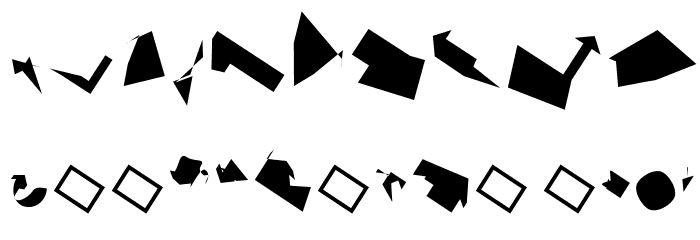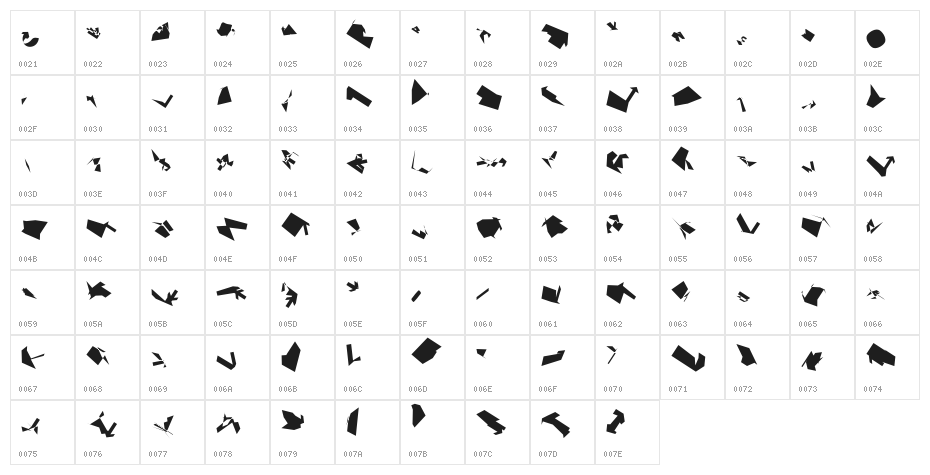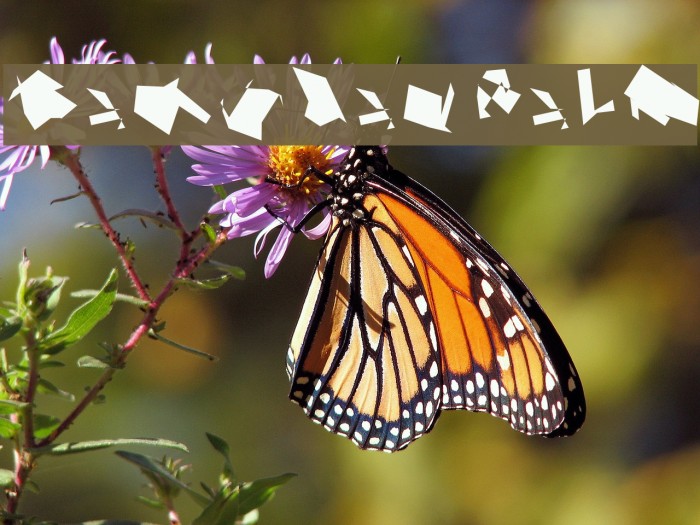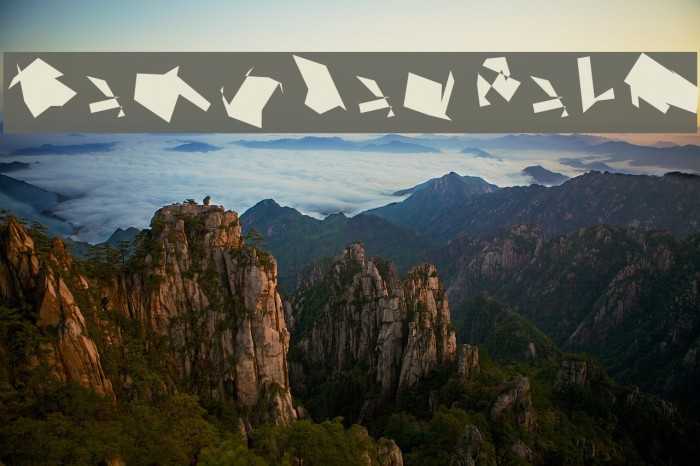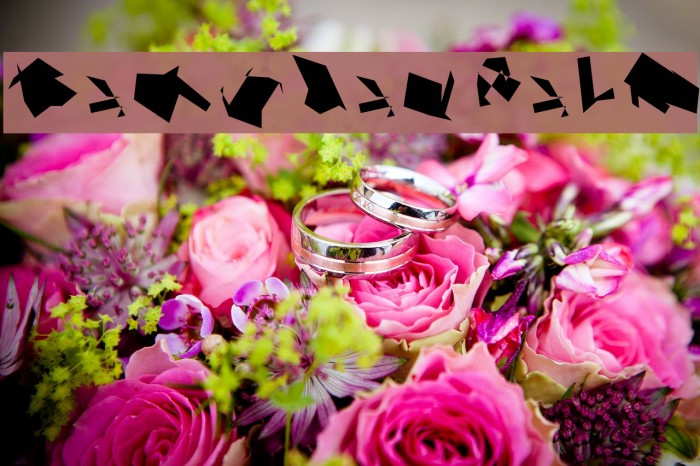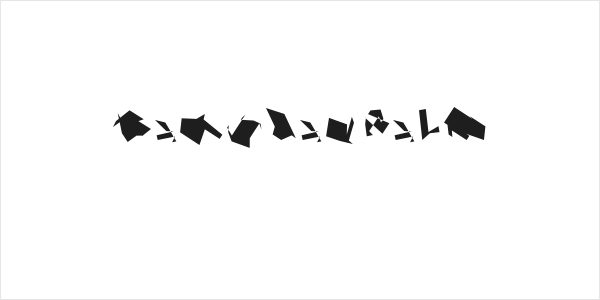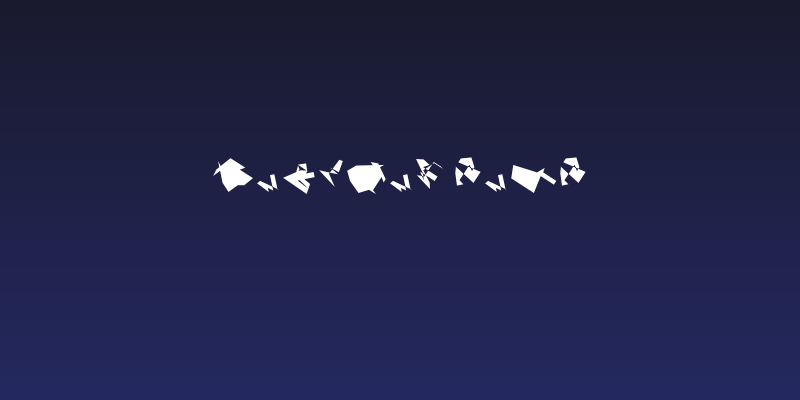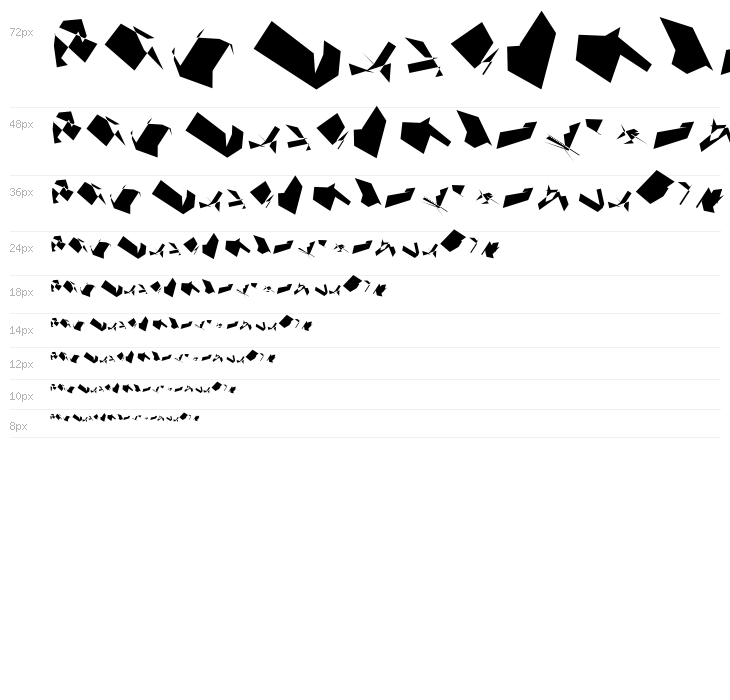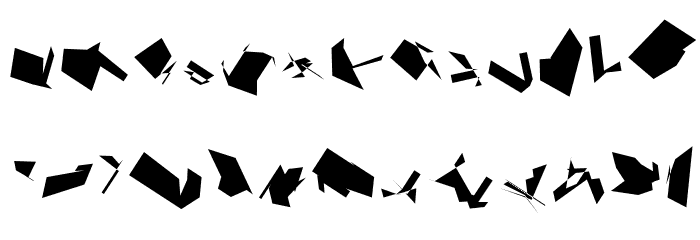
Siberia Tilt Font
Siberia Tilt Description
An abstract, highly geometric display font with sharp, angular shapes and heavy tilts, creating a fragmented and experimental appearance. The letterforms are barely recognizable, composed of bold, irregular polygons and disconnected elements.
| Overall Style | Experimental, Abstract, Modern, Decorative |
| Use Case | Logos, Headlines, Posters, Artistic projects |
| Proposed Projects | Album covers, experimental posters, avant-garde branding, art installations, digital artwork. |